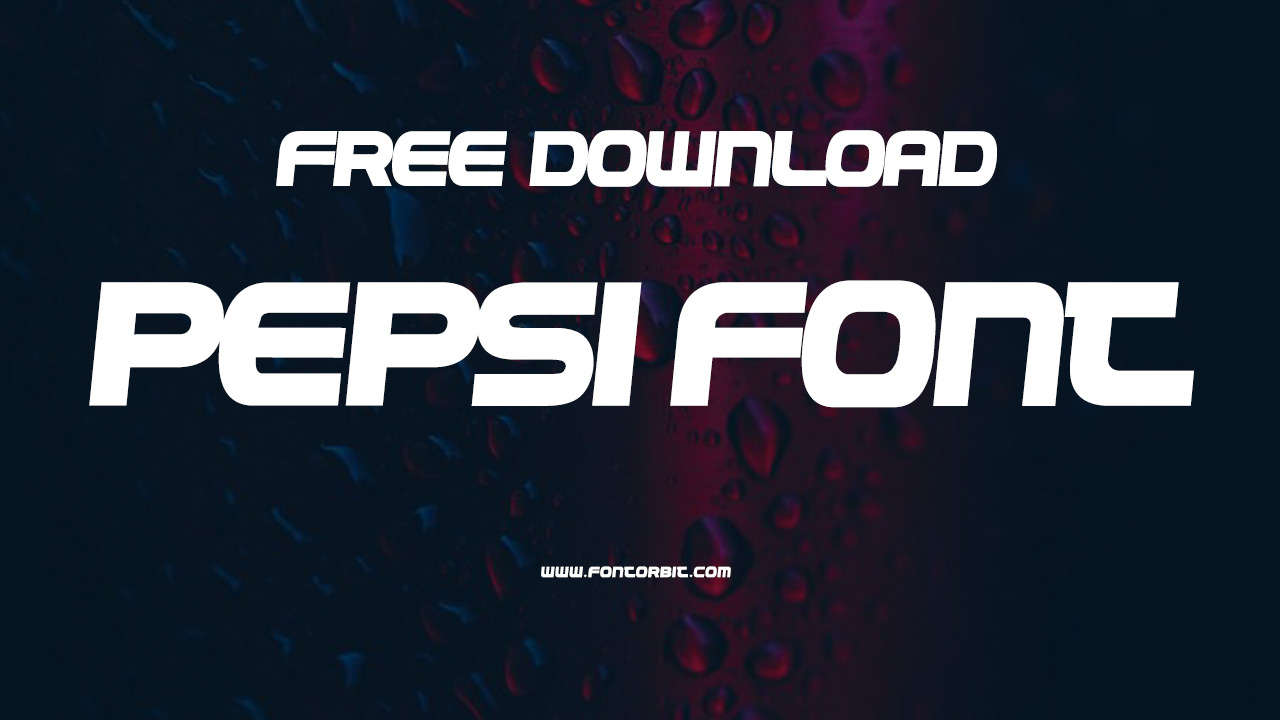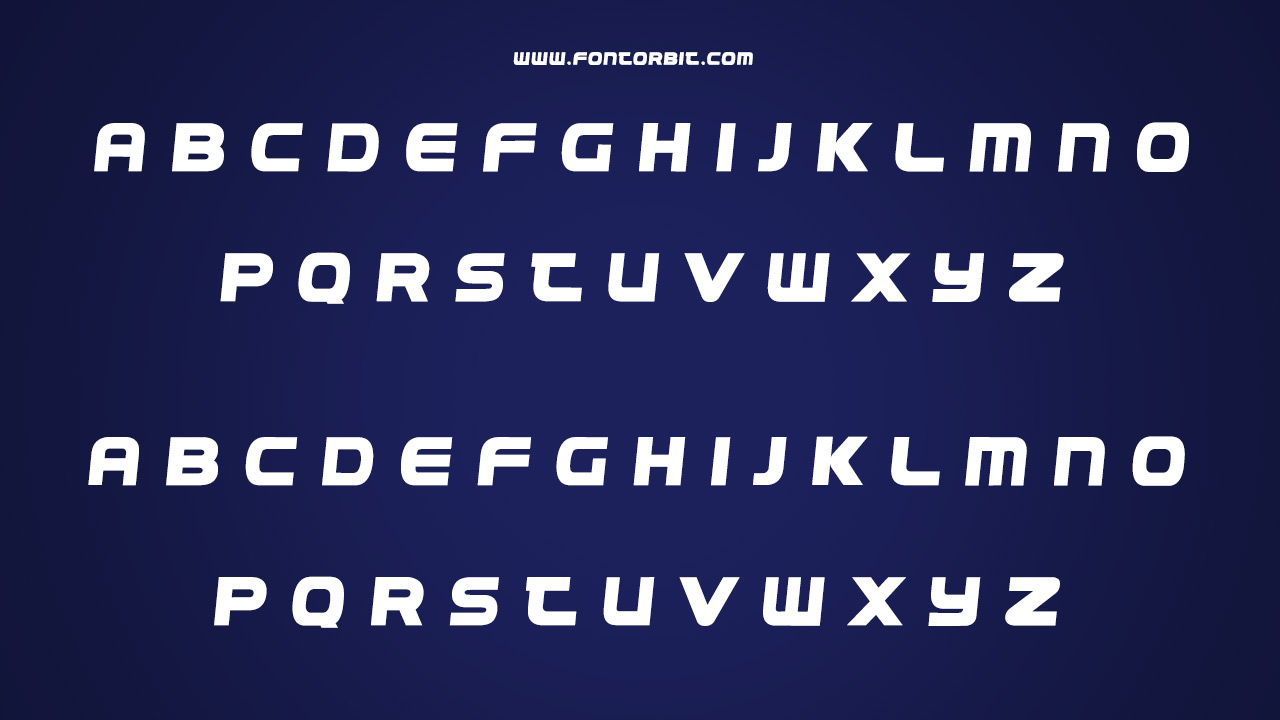
The Pepsi Font is synonymous with the brand’s dynamic and energetic identity. Designed by Jakub Degórski. Recently rebranded, Pepsi has introduced a custom typeface known as Pepsi Owners, a tailored version of the Owners typeface, which balances familiarity with a modern flair.
Pepsi’s typeface reflects its vibrant brand persona. While it’s likely a custom design, similar fonts are available for those looking to evoke the same feel. The primary alternatives include:
The Pepsi Font Found In Use
The Pepsi Font is prominently used in branding and marketing campaigns, helping to communicate the brand’s youthful and energetic image. Its distinctive style is immediately recognizable, making it a popular choice for designs related to the beverage industry.
The Pepsi Font is a vibrant typeface that encapsulates the essence of the Pepsi brand. Perfect for various marketing and branding projects, it allows designers to create impactful visuals that resonate with consumers.
1.What Are The Characteristics Of The Pepsi Font?
The Pepsi Font features bold, modern lettering that conveys energy and dynamism, aligning with the brand’s youthful image.
2.What Are The Considerations For Using Pepsi Font In Branding?
Ensure the font reflects your brand’s identity and energy. The Pepsi Font is ideal for vibrant and contemporary themes but may not suit more traditional brands.
3.What Are The Limitations Of Using Pepsi Font In Design?
Its bold style may not work well for minimalistic designs or brands that require a more understated approach.
4.What Are The Differences Between Pepsi Font And Other Modern Fonts?
The Pepsi Font is tailored to embody the brand’s identity, while other modern fonts may not have the same energetic feel or recognizable brand connection.
6.How To Create A Vibrant Effect With Pepsi Font?
Use bright colors and dynamic layouts in your design software to enhance the energetic feel of the font.
8.What Styles Are Popular In Pepsi Fonts?
Modern, bold, and dynamic styles are popular, offering a lively look suitable for branding and advertising applications.